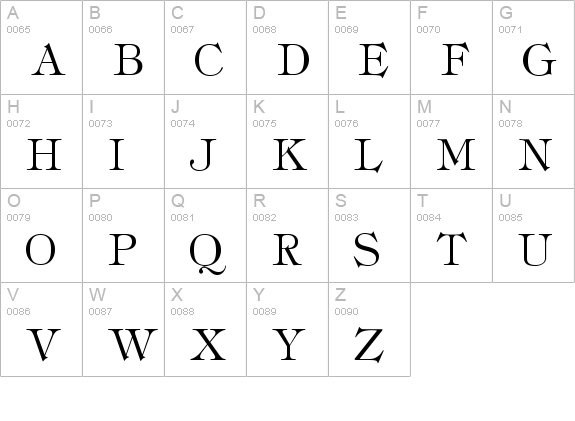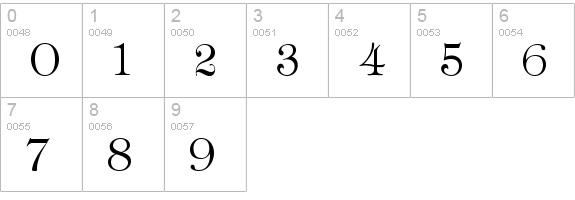
TiffanyLight is a stunning and elegant font that exudes sophistication and charm. With its delicate and graceful letterforms, this font is perfect for adding a touch of class to any design project. Whether you're creating wedding invitations, logos, or branding materials, TiffanyLight will effortlessly elevate your work to new heights. What sets TiffanyLight apart is not only its beauty but also its accessibility. This font is available for free download at FontsMarket.com, making it easily accessible to designers and creatives alike. The fact that it is freely available means that you can use it without worrying about breaking the bank, allowing you to focus on creating breathtaking designs without any limitations. The versatility of TiffanyLight is another standout feature. It works seamlessly across various design applications, from print to digital, ensuring that your message is communicated effectively and stylishly. Its clean and legible design makes it suitable for both large and small sizes, ensuring readability in any context. With its timeless elegance and accessibility, TiffanyLight is a font that is sure to become a favorite among designers. Whether you're a seasoned professional or just starting out, this font will inspire you to create stunning designs that leave a lasting impression. Don't miss out on the opportunity to enhance your design projects with TiffanyLight. Download it for free at FontsMarket.com and unleash your creativity today.